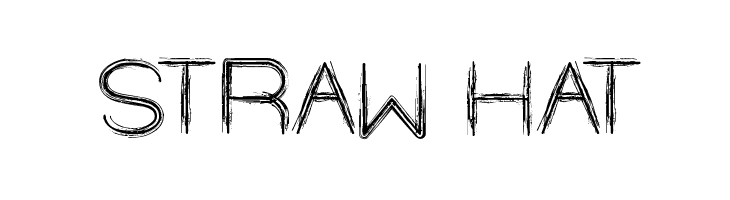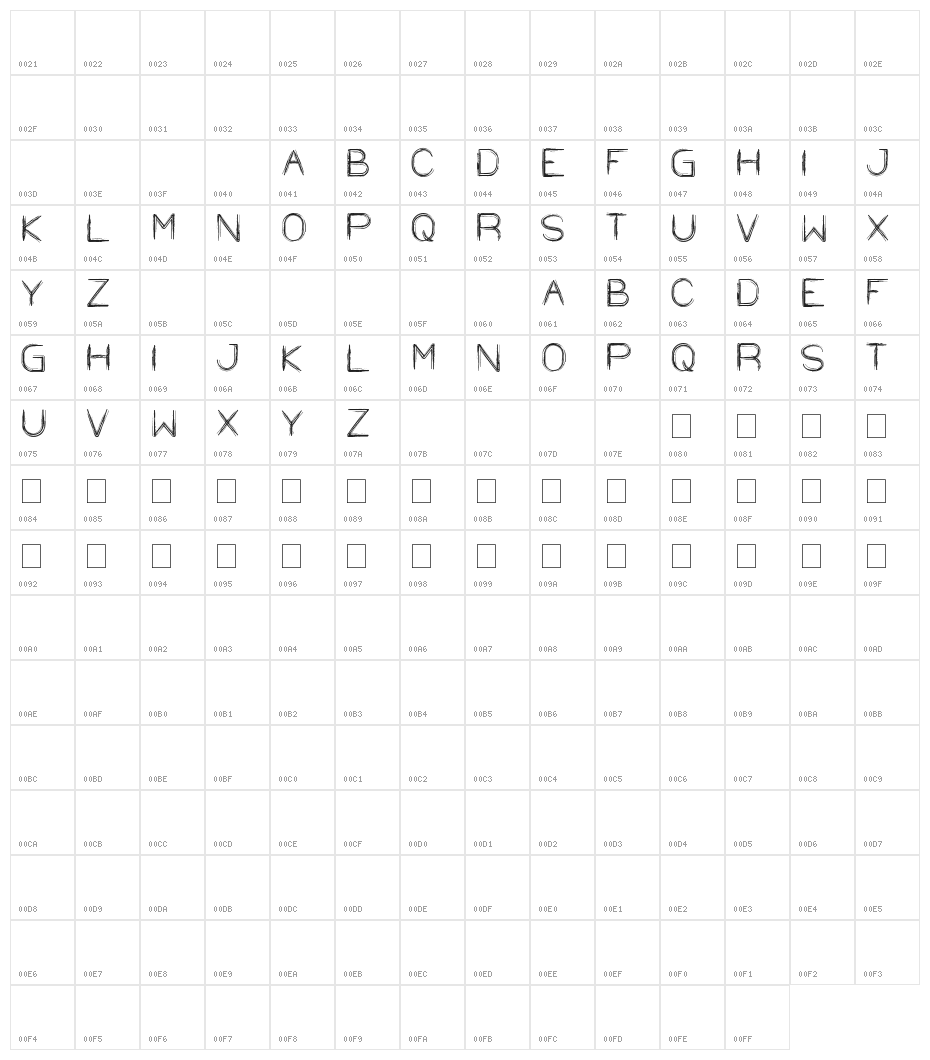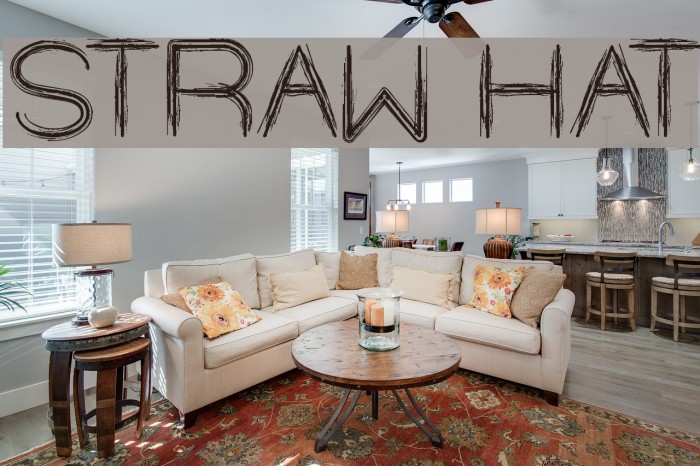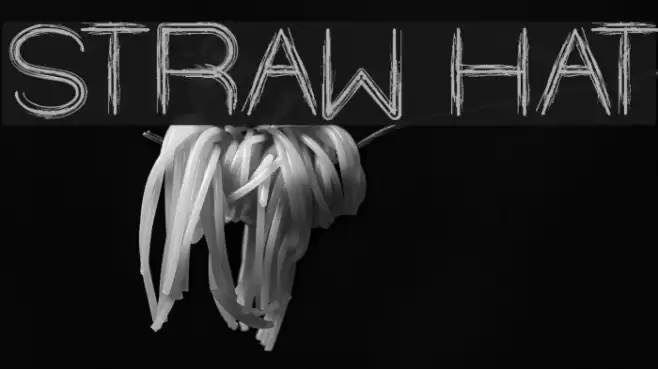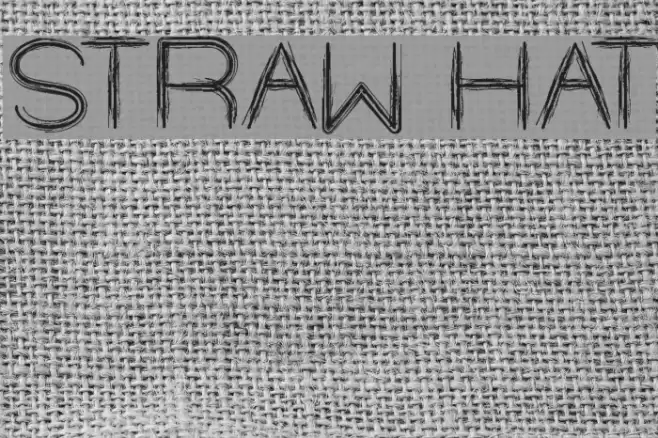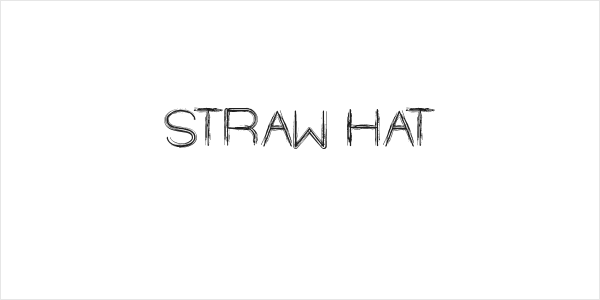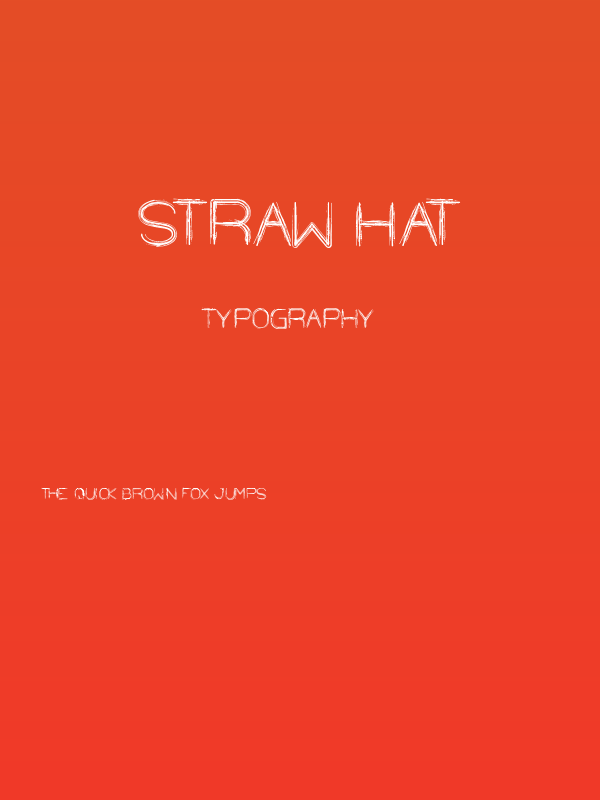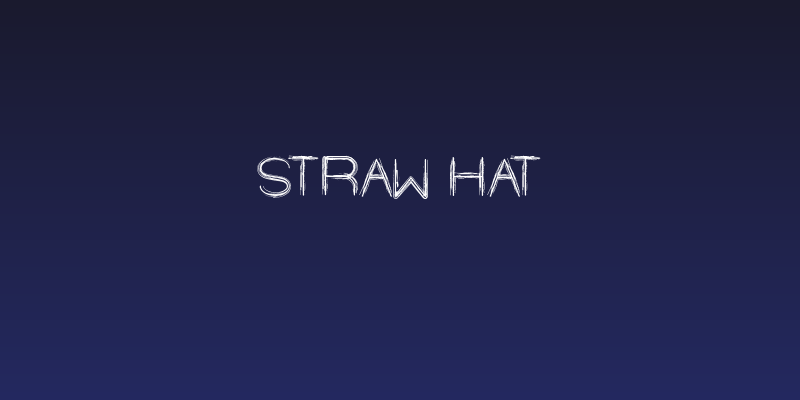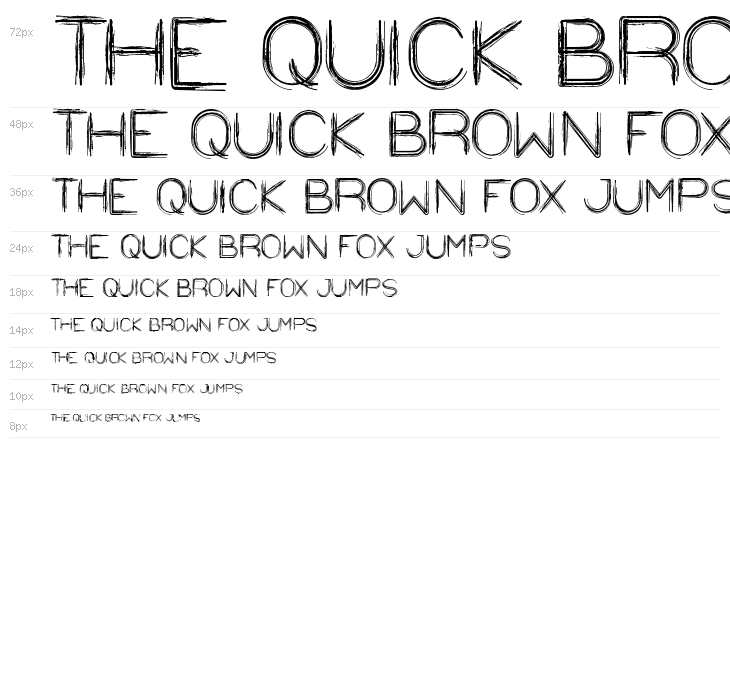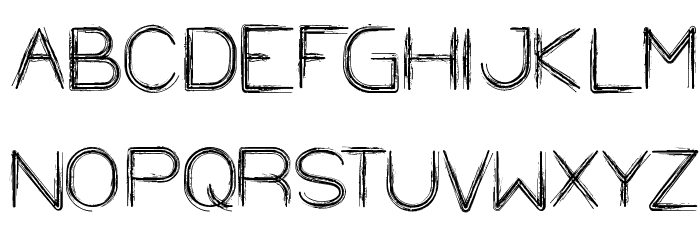
STRAW HAT Font
STRAW HAT Description
This font features a unique, distressed style with rough, sketch-like edges that give it a hand-drawn appearance. The uppercase letters are consistent in height, and the strokes vary in thickness, creating a dynamic and textured look. The design is reminiscent of a rustic or grunge aesthetic, making it stand out with its bold and artistic flair. The characters maintain a uniform width, and the overall spacing is balanced, allowing for readability despite the intricate detailing. This font is ideal for projects that require a touch of creativity and an edgy, handcrafted feel.
| Proposed Projects | Ideal for posters, album covers, branding for creative industries, and any project needing a bold, artistic touch. |